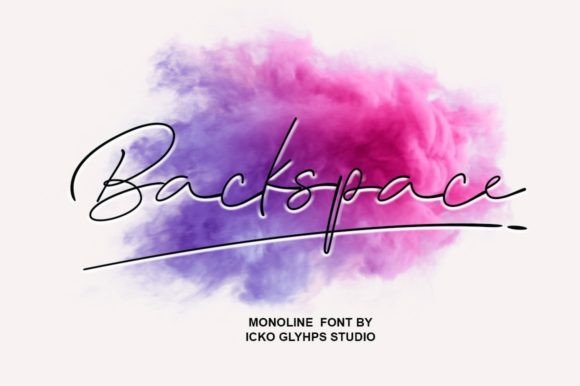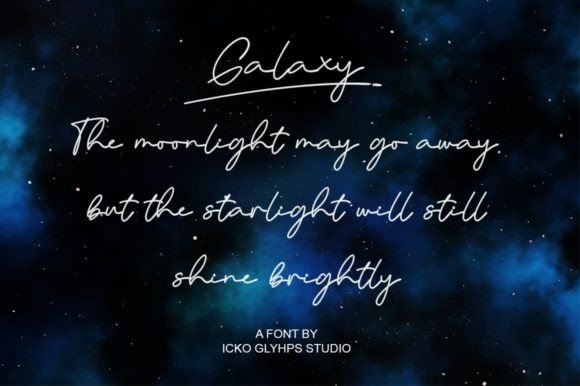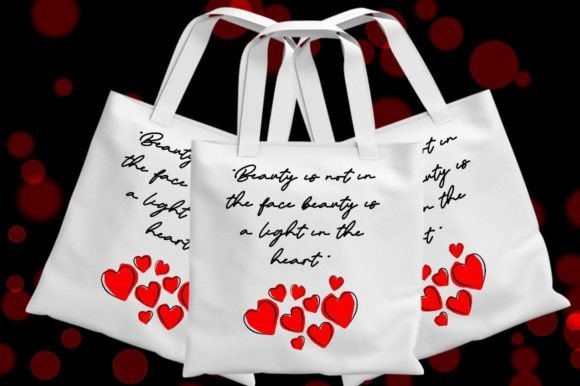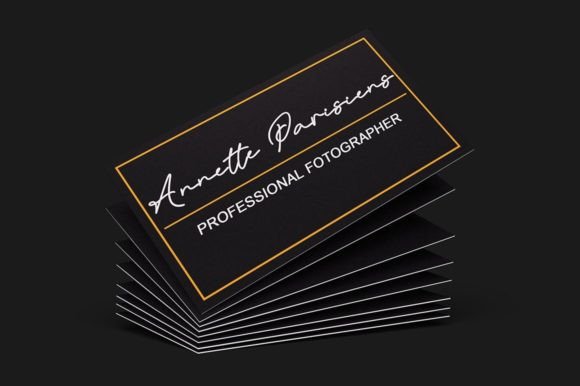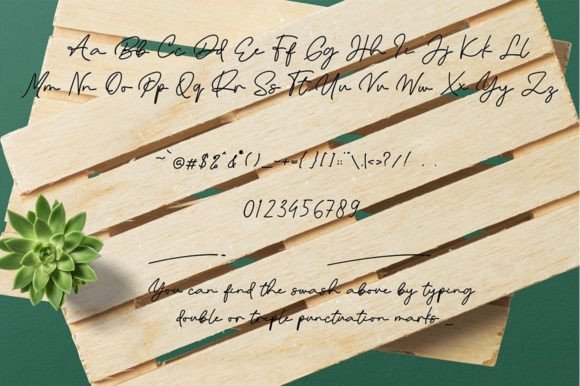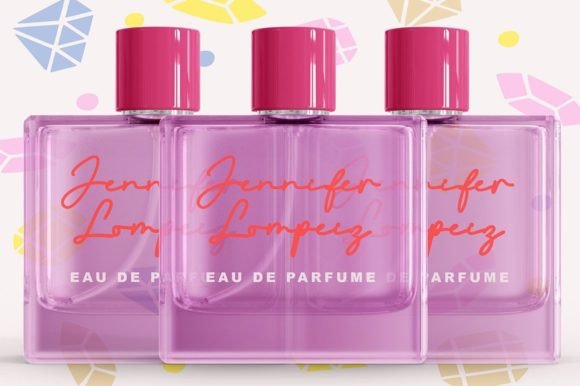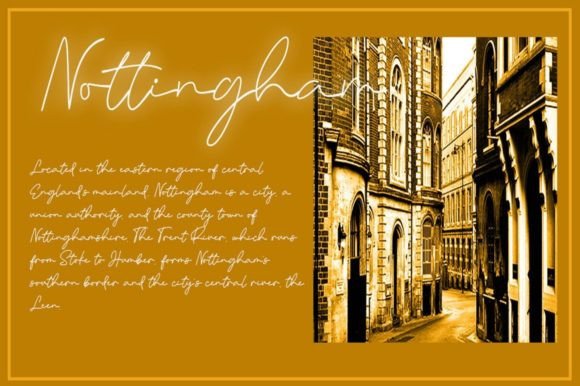
Backspace Font
About Backspace Font
“Backspace” emerges as a modern monoline handwritten font, adding a touch of contemporary charm to your design projects. Its versatile nature makes it suitable for a range of applications, from wedding invitations and calligraphy to quotes, feminine or organic logos, small business branding, business cards, packaging, T-shirts, and beyond.
The monoline design of “Backspace” contributes to its modern aesthetic. The consistent thickness of the lines gives the font a clean and streamlined appearance, making it adaptable to various design styles. This makes it particularly well-suited for contemporary applications where a balance of simplicity and sophistication is desired.
For wedding invitations and calligraphy, “Backspace” offers a fresh and stylish option. Its handwritten quality adds a personal and organic touch, creating a warm and inviting atmosphere. Whether you’re designing invitations for a modern wedding or crafting elegant calligraphy, this font provides a versatile and contemporary solution.
In the realm of branding and logos, “Backspace” shines as a feminine and organic choice. Its flowing lines and modern appeal make it suitable for businesses or products that seek to convey a sense of elegance and approachability. Whether used for small business branding, business cards, or packaging, “Backspace” brings a trendy and feminine flair to the visual identity.
The adaptability of “Backspace” extends to casual and wearable items such as T-shirts. Its modern monoline style ensures legibility while adding a touch of handwritten charm, making it an excellent choice for creating stylish and comfortable apparel designs.
In summary, “Backspace” is a versatile font that bridges the gap between modernity and organic charm. Whether applied to wedding invitations, calligraphy, quotes, logos, or various other design projects, its contemporary monoline style makes it a valuable asset for designers seeking a fresh and stylish look. Let “Backspace” be the modern handwritten font that elevates your creative endeavors.